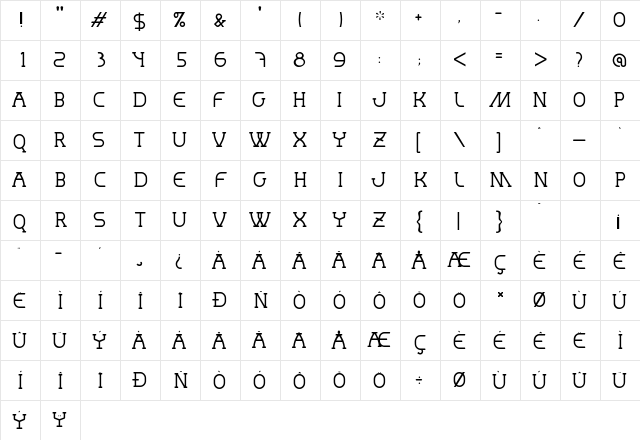
MastumThin Regular
Design Context for MastumThin Typeface
MastumThin offers clean, dependable letterforms without strong stylistic allegiance, making it a practical choice for designers who need flexibility. Its slender proportions lend an understated elegance to any composition.